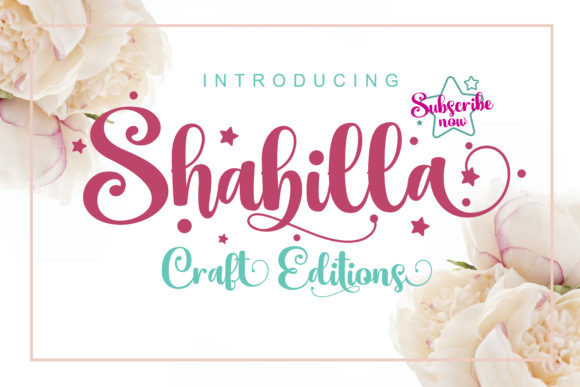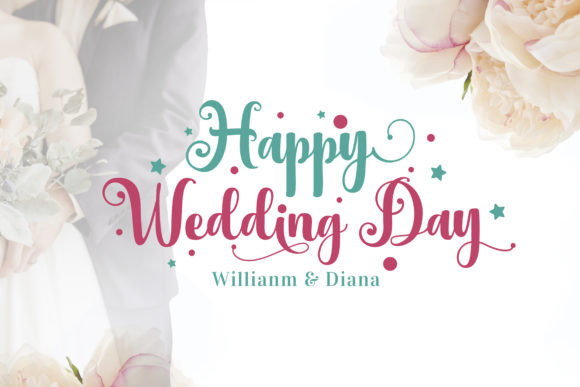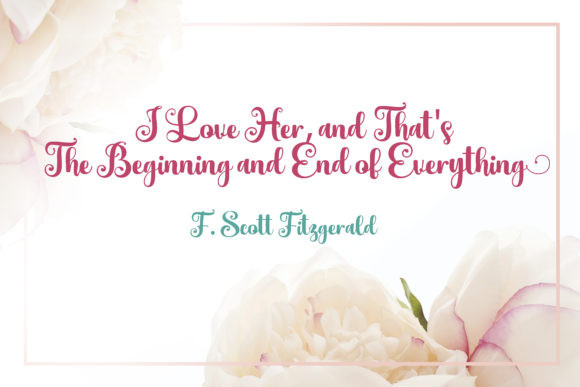
Shabilla Font
Shabilla is a modern and cute handwritten font. Fall in love with its authentic feel and use it to create gorgeous wedding invitations, beautiful stationary art, eye-catching social media posts, and cute greeting cards. This font is PUA encoded which means you can access all of the alternate glyphs.